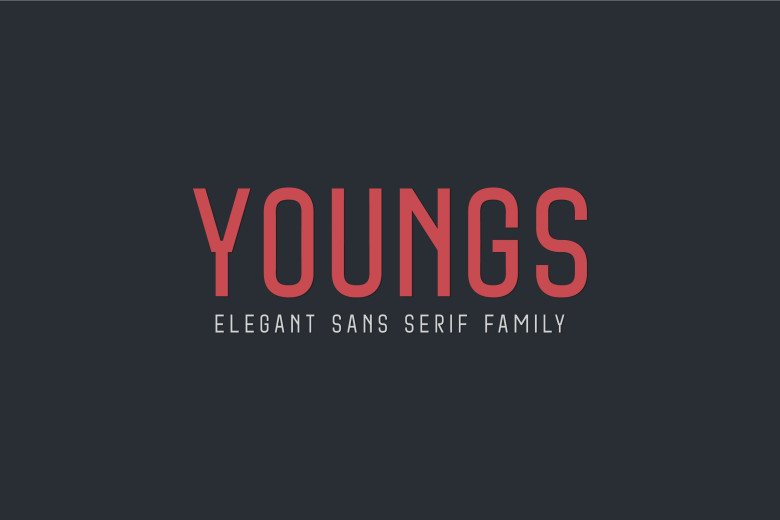
Youngs Font
Youngs is a condensed display font that is inspired by sports. Youngs can be used diversely but is particularly best in logos and large typographic applications. It’s fun but has a cool, edginess to it at the same time. Youngs is not just another sans-serif, you are going to want this in your font list.
Youngs Sans Serif Font Family